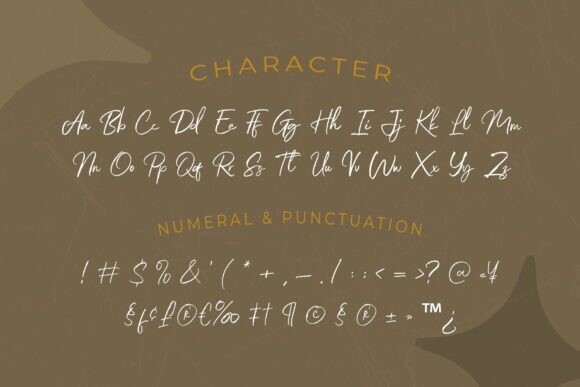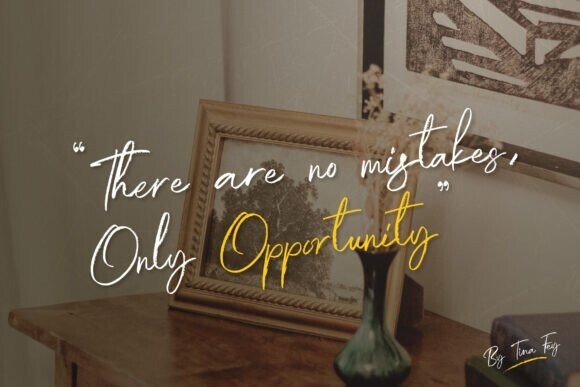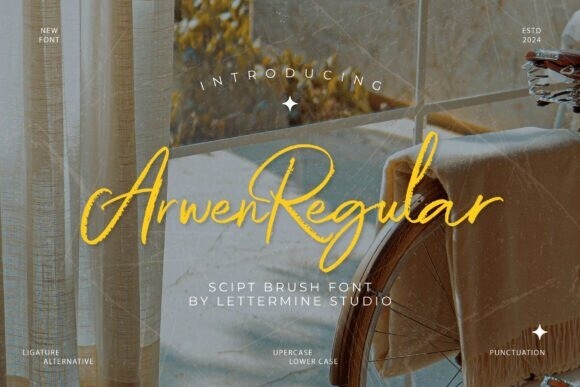
Arwen Font
Designer: Lettermine
Arwen Font is a stunning brush script font that radiates both strength and elegance. With each stroke crafted to embody a natural flow, it brings the energy of handwritten letters to life. This font adds a dynamic and personal touch to your designs, blending artistic spontaneity with structure and style.